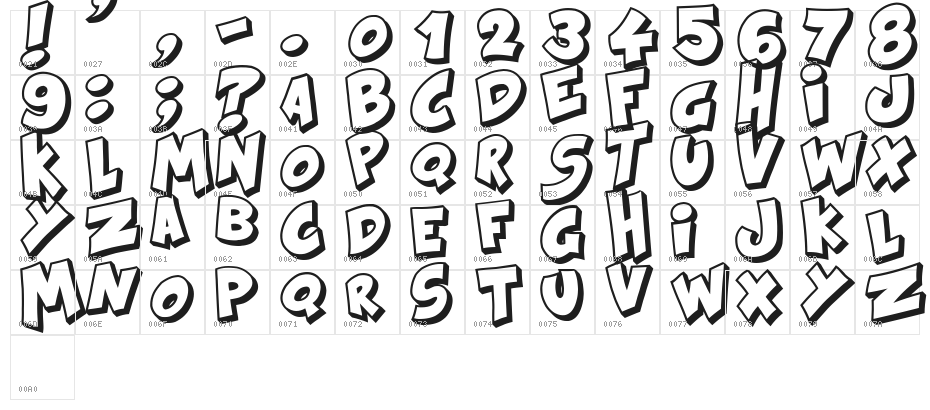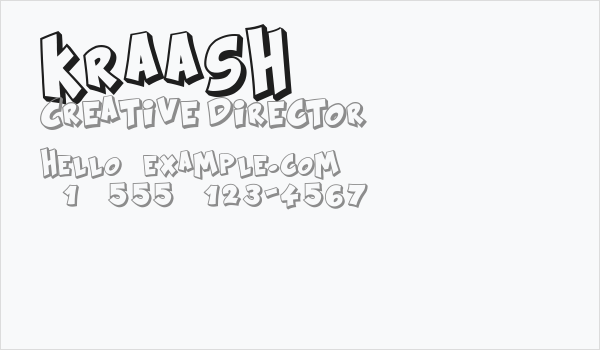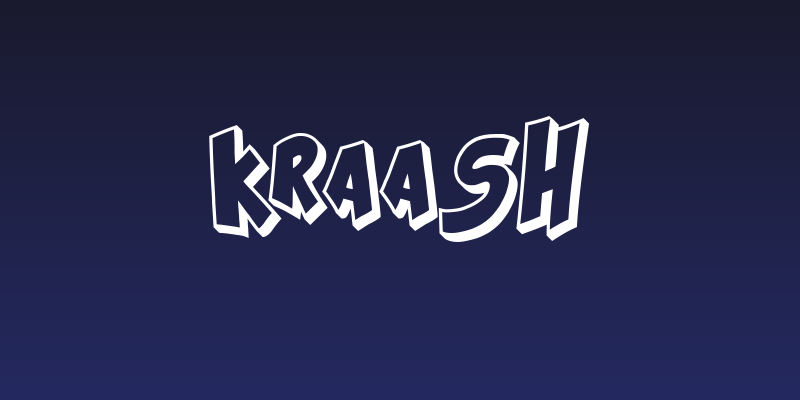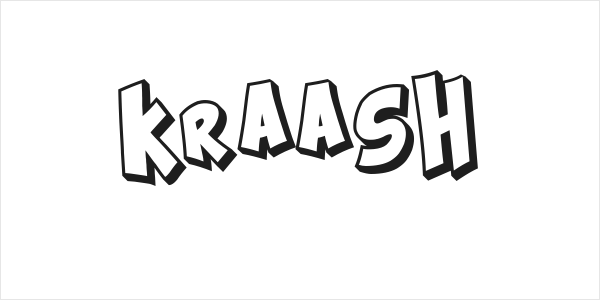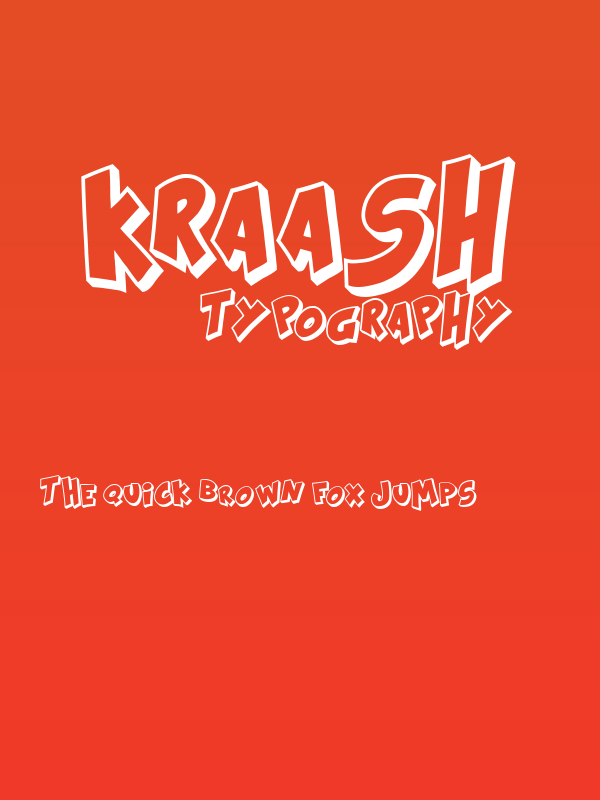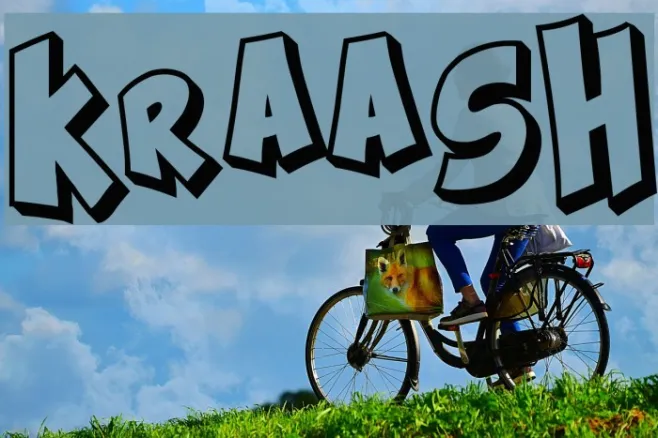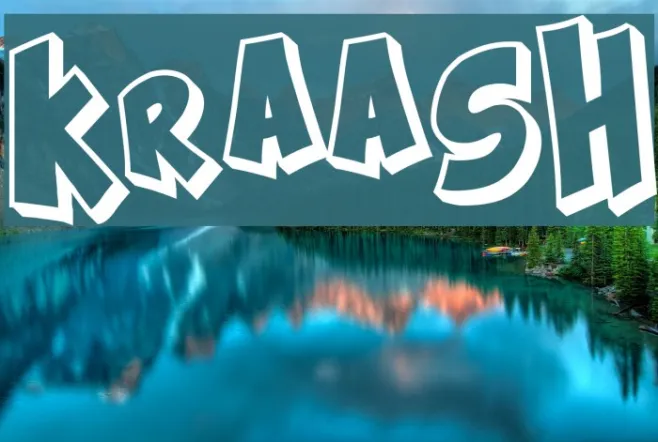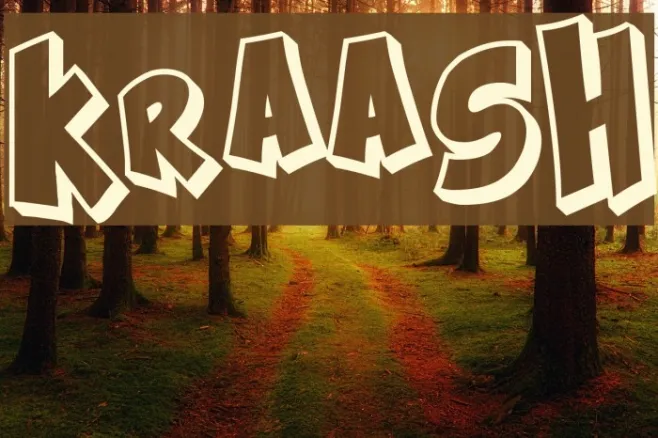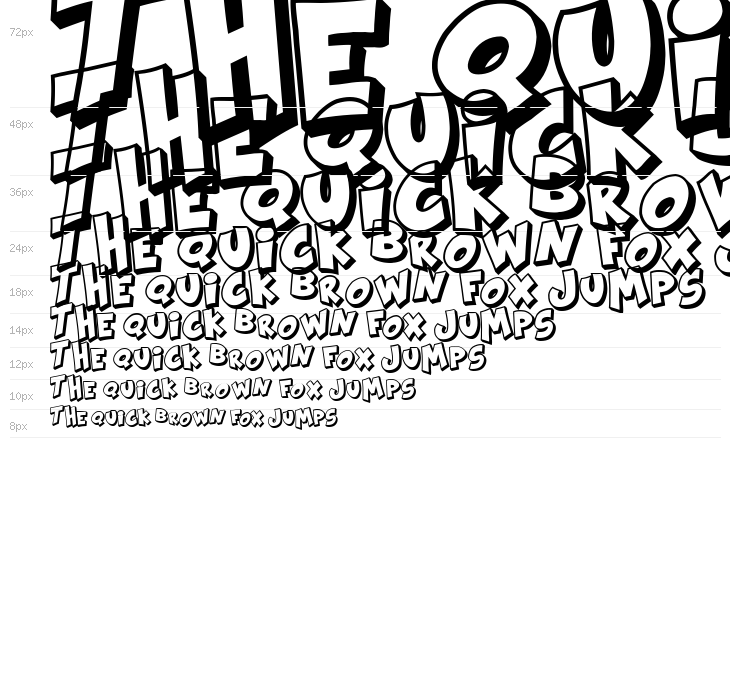
Kraash Font
Kraash Description
This playful and bold font features a cartoonish style with exaggerated, thick strokes and a dynamic, energetic feel. The letters are slightly tilted, adding a sense of movement and fun. Each character has a three-dimensional effect with a shadow that enhances its playful appearance. The font is highly legible and stands out with its unique, whimsical design. It is perfect for projects that require a lively and engaging typeface, such as children's books, comic strips, or playful branding. The numbers and special characters maintain the same energetic style, ensuring consistency across all text elements.
| Overall Style | Playful, Cartoonish, Energetic |
| Proposed Projects | Ideal for children's books, comic strips, playful branding, and fun posters. |